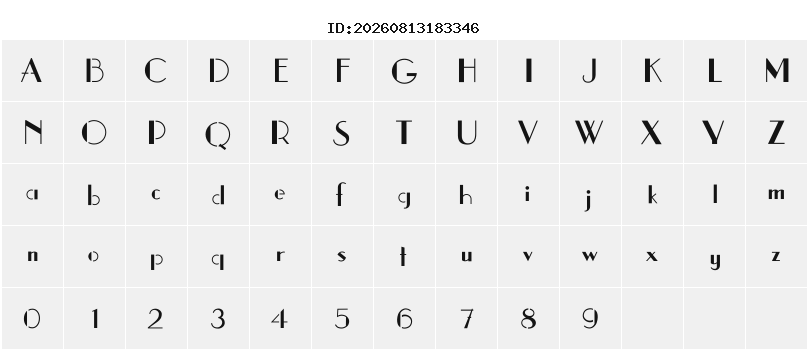
stencil1935 Preview
About stencil1935.ttf
stencil1935.ttf is a modern, elegant sans-serif font designed for ultimate readability and visual harmony. Perfect for branding, headlines, web design, and print materials.